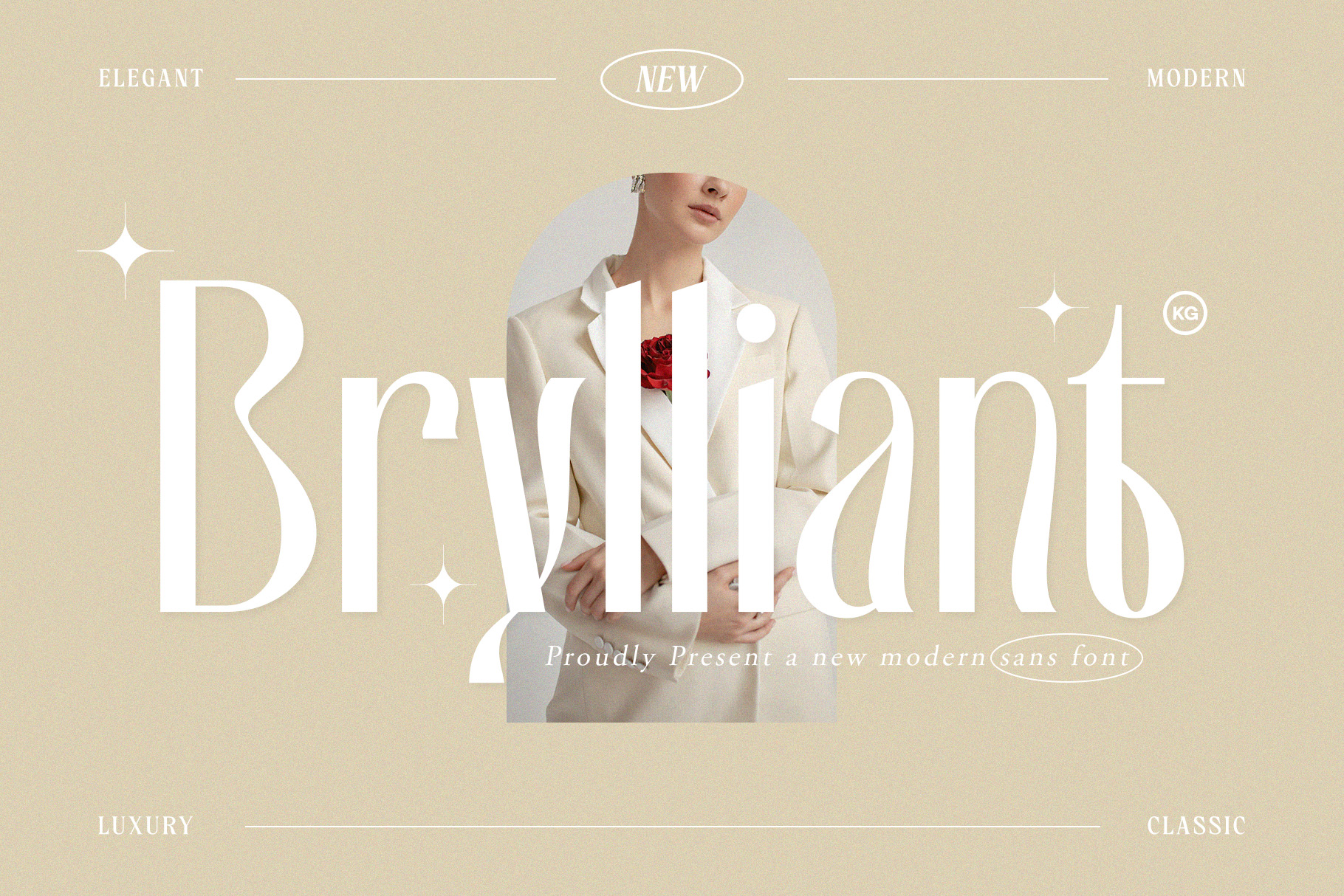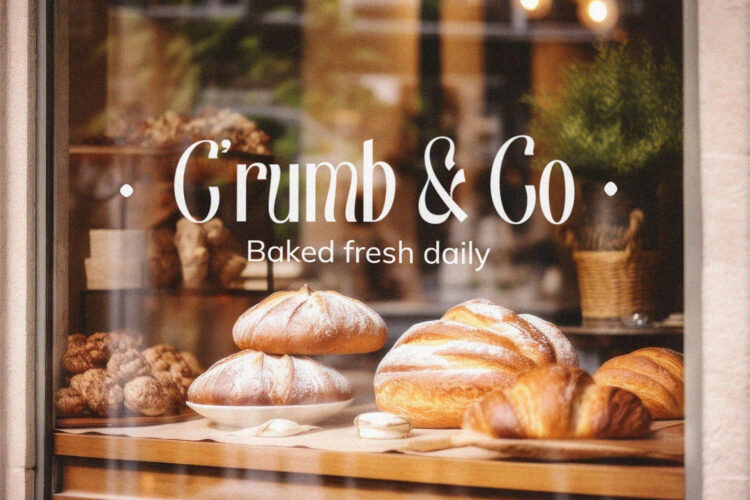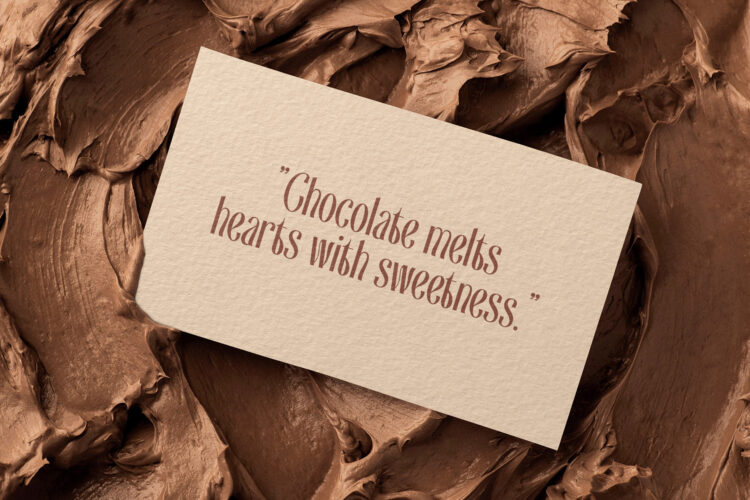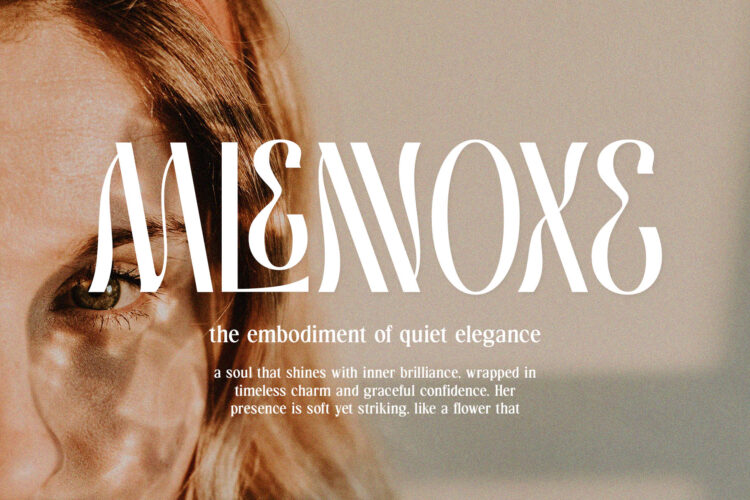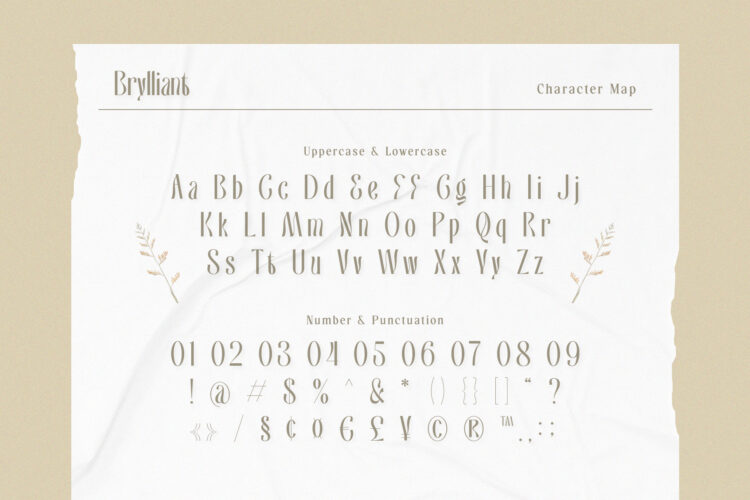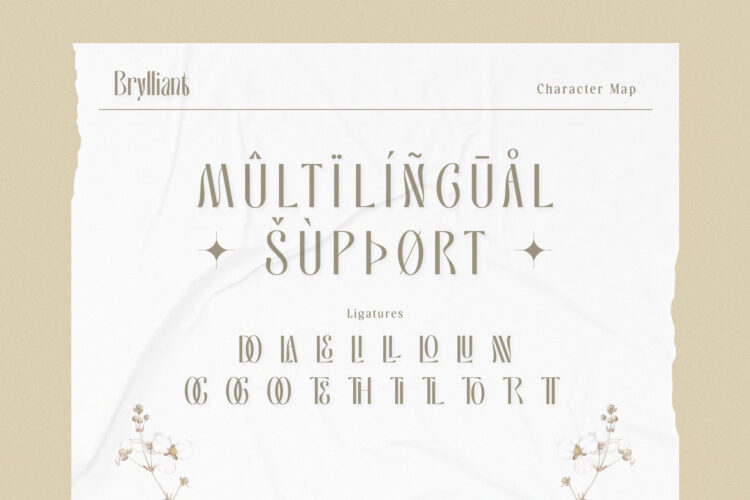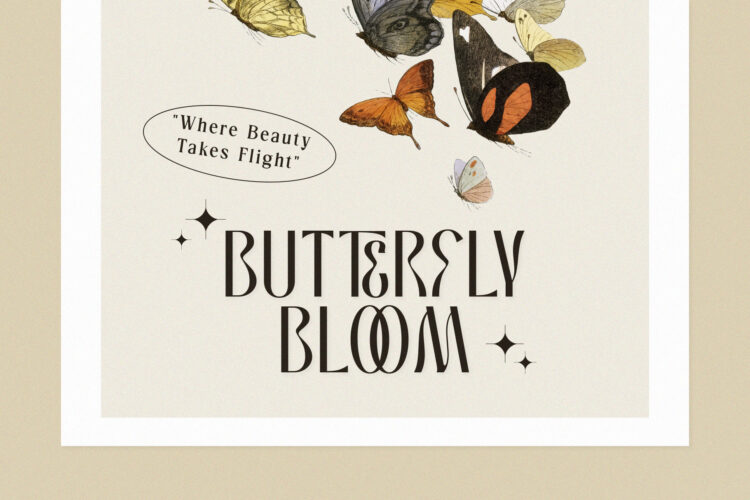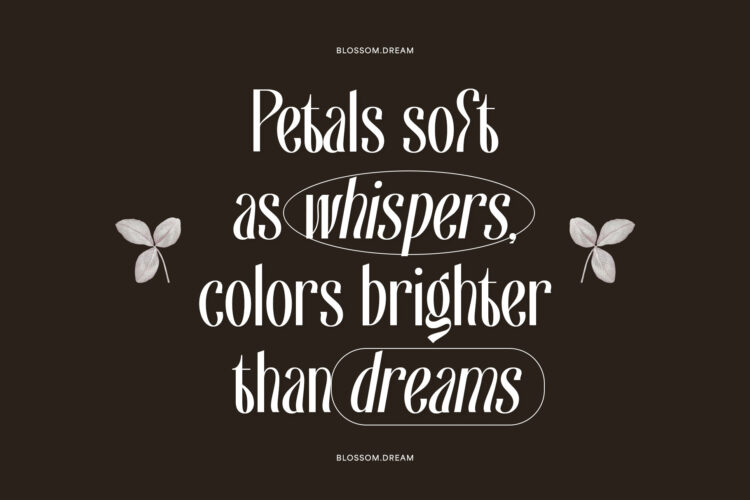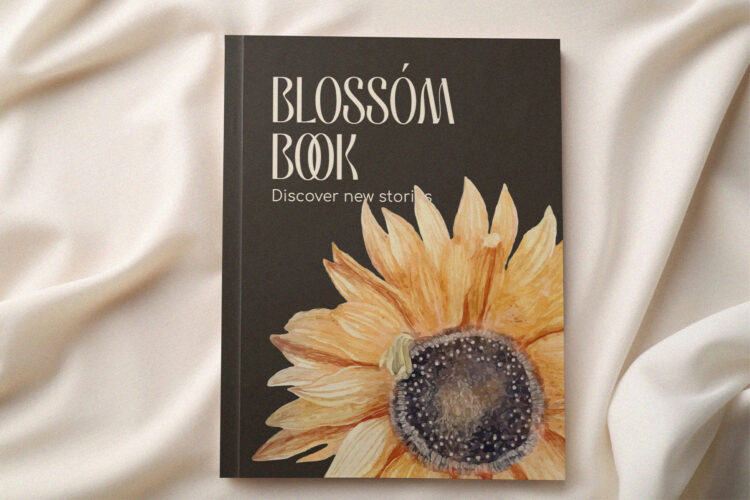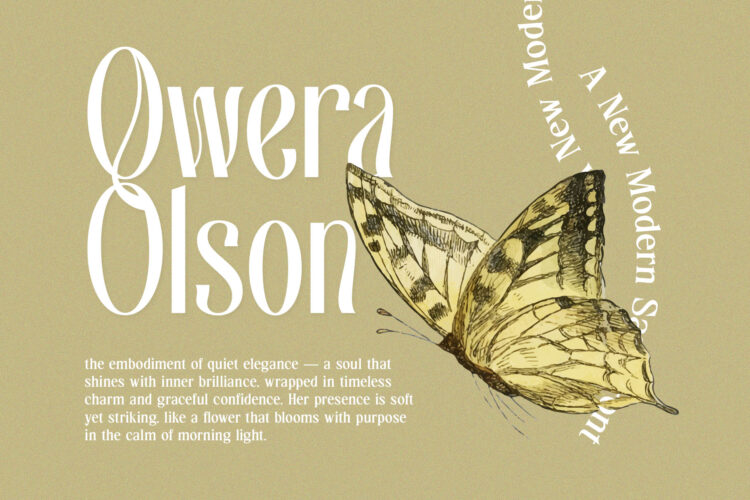
Introducing Brylliant, a refined and versatile modern sans serif font that blends classic elegance with contemporary charm. With its tall letterforms, graceful curves, and unique stylistic details, Brylliant is designed to elevate your creative projects with a touch of luxury and sophistication.
Perfectly suited for fashion editorials, branding, packaging, magazine layouts, wedding stationery, and high-end logo designs, Brylliant brings timeless beauty to modern typography. Each letterform is crafted with precision to create a balance of style and readability — making it ideal for both display and editorial use.
– Uppercase & lowercase letters
– Numbers & punctuation
– Ligatures & stylistic alternates
– Multilingual support
– Elegant & clean design
– Luxury fashion feel
– Modern classic aesthetic
– Perfect for logos, headlines, and branding
Make your next project shine with the brilliance of Brylliant.
Brylliant – Elegant Modern Sans Serif Typeface